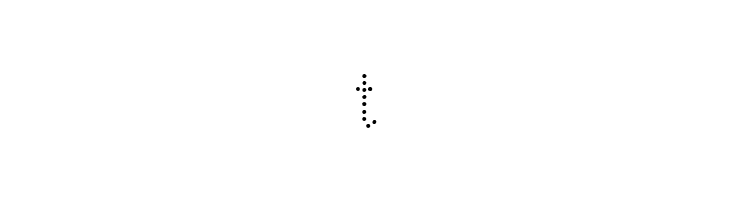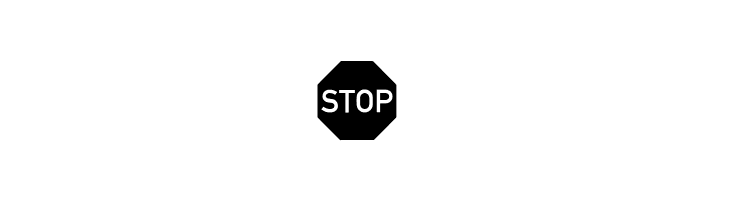
A bold, specialized font for music notation and symbols.
A dotted font ideal for educational and playful design projects.
Bold pictogram font with universal signage icons.
A clean, structured font ideal for educational and handwriting practice.
Bold, geometric icon set with high legibility.
A clean, geometric sans-serif font optimized for clarity and readability.
Bold, geometric battery icons with clear, modern styling.
Bold, simplified icons representing home entertainment and tech devices.
A geometric symbol font featuring directional arrows and basic icons.
A bold, geometric pictogram icon set for signage and wayfinding.